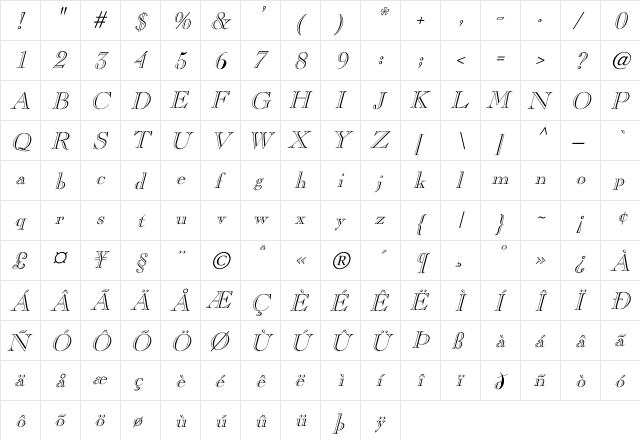
Lara Italic Hollow Italic Font Preview
Lara Italic Hollow Italic
Design Context for Lara Italic Hollow Typeface
Lara Italic Hollow takes a measured approach to typography — its balanced proportions and neutral character make it a reliable workhorse for both digital and print work. The slanted form adds forward momentum and visual energy.
Pro Tip: Try Lara Italic Hollow for annotation and caption copy alongside an upright companion — the contrast in angle creates a dynamic but ordered typographic system.